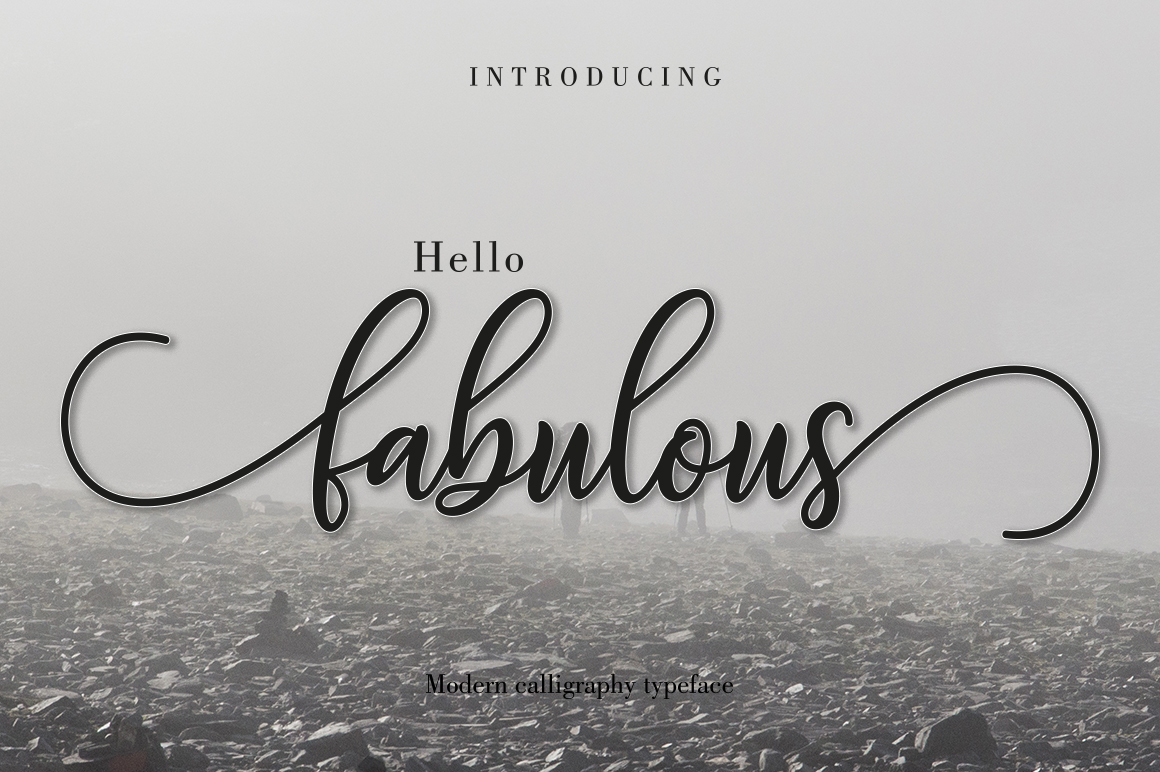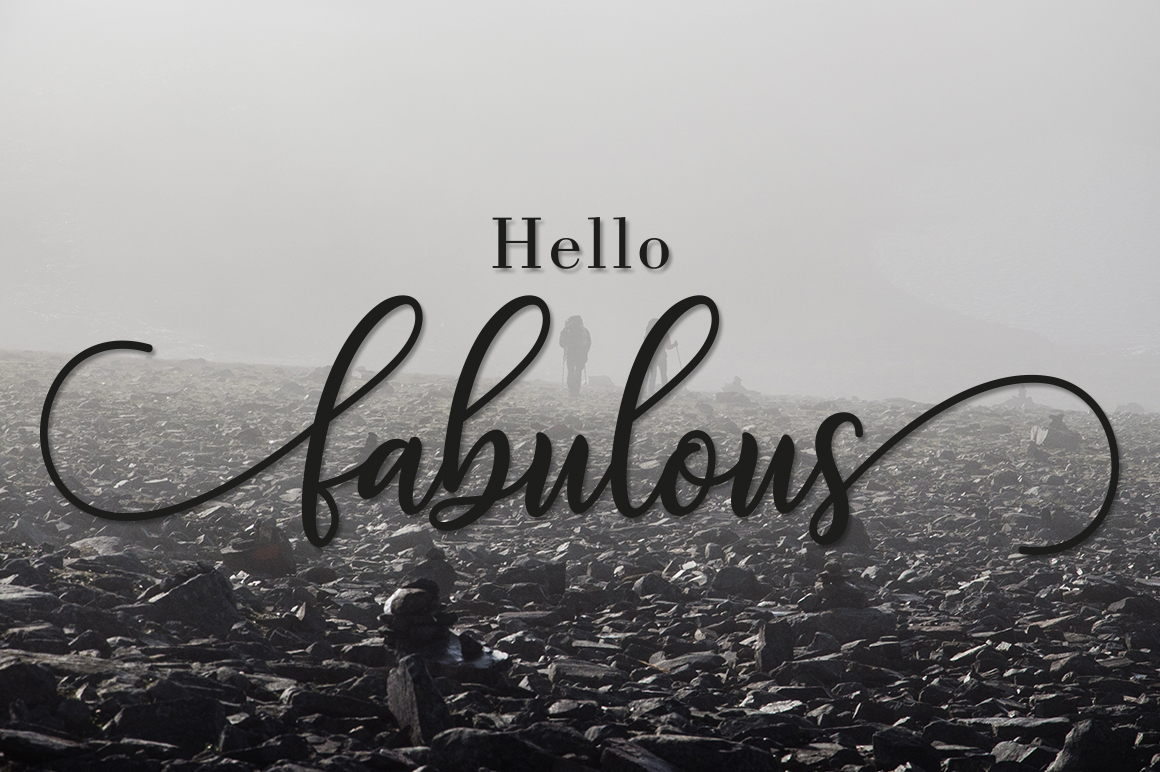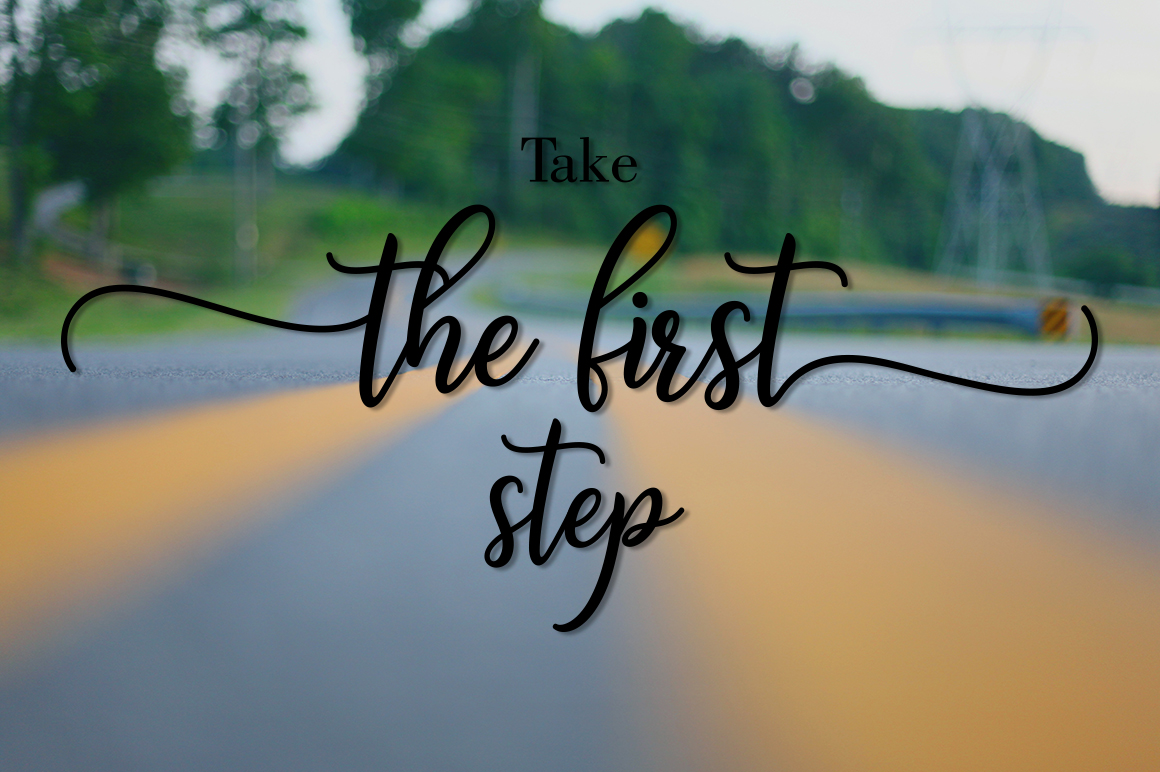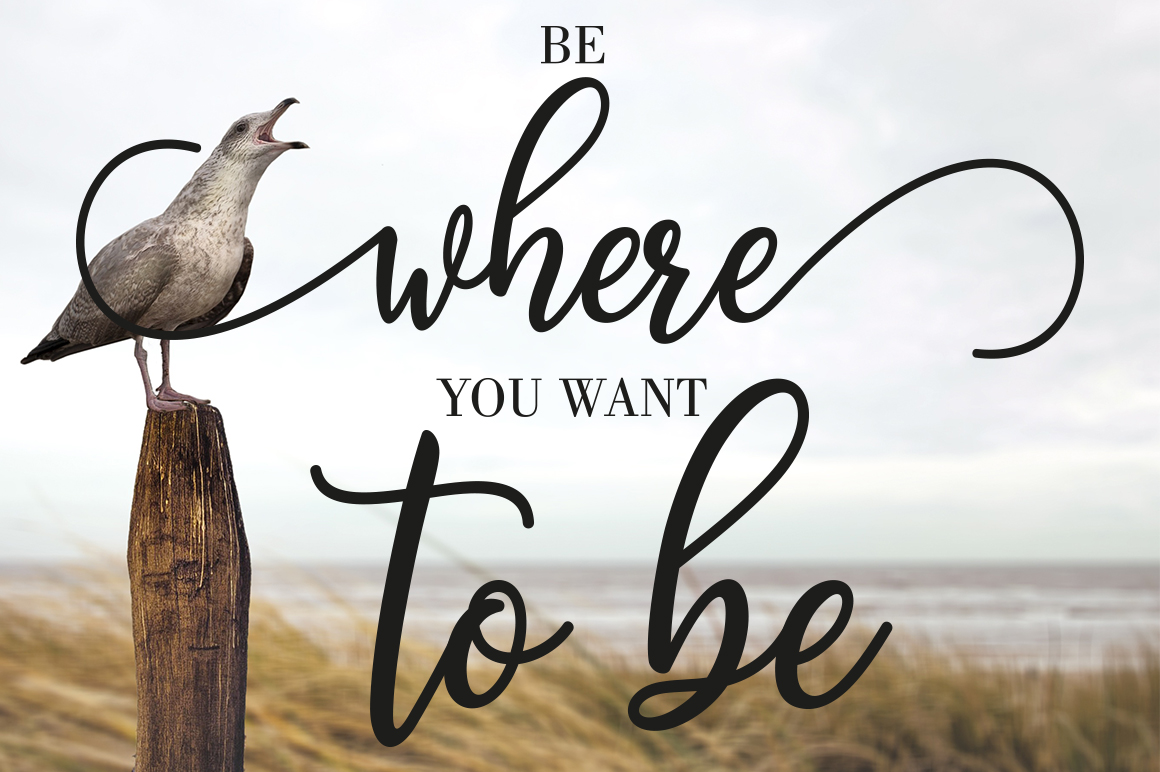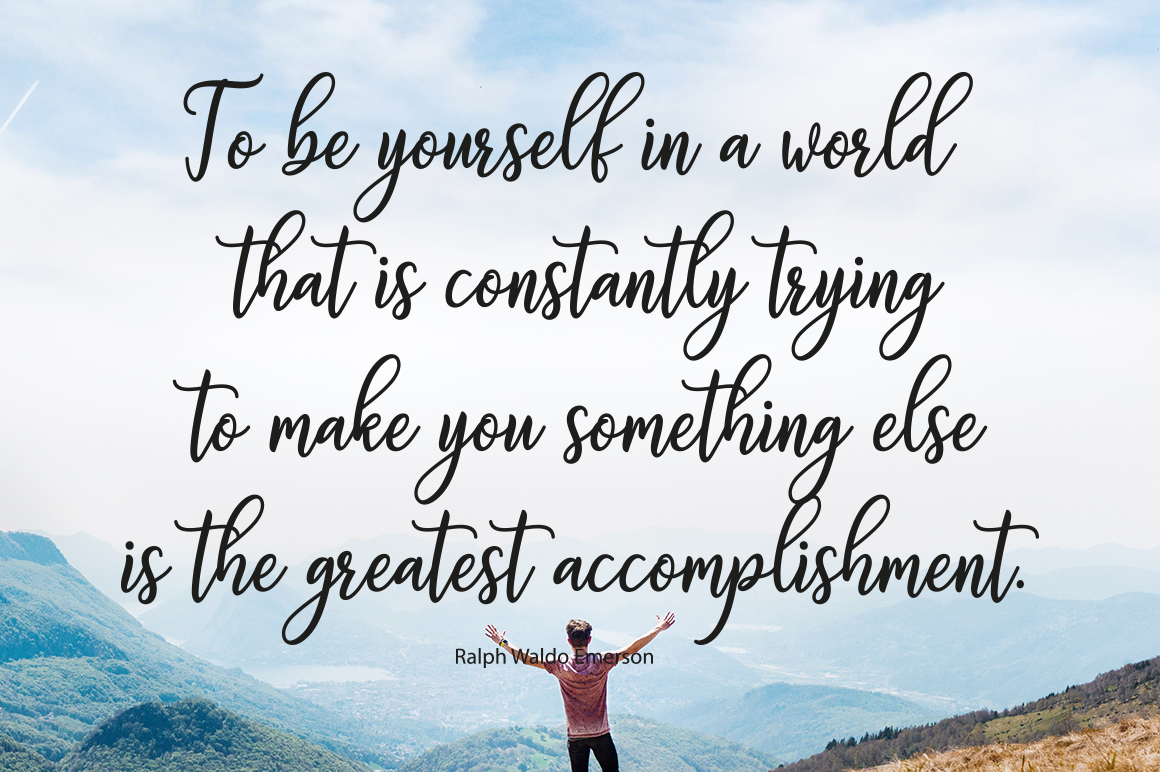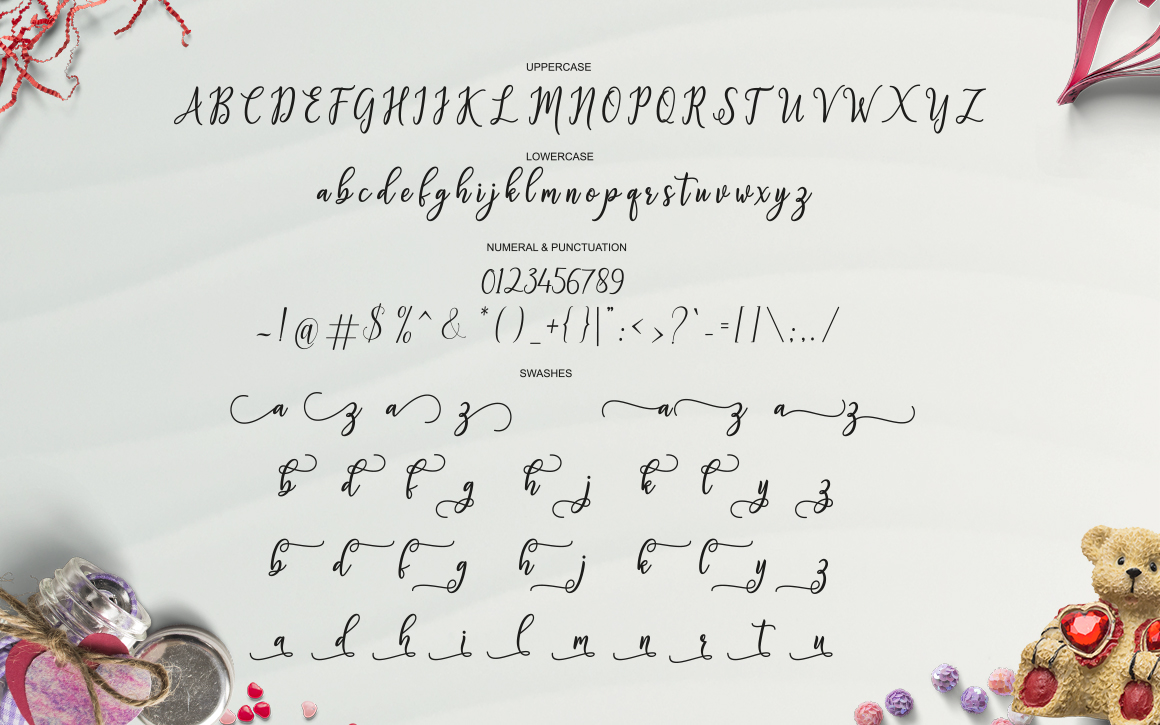
Fabulous Script Font
About Fabulous Script Font
The Fabulous Script is just that; variable, stunning and modern, this script is perfect for displaying the most precious of your messages. Add a personal touch with the Fabulous Script.